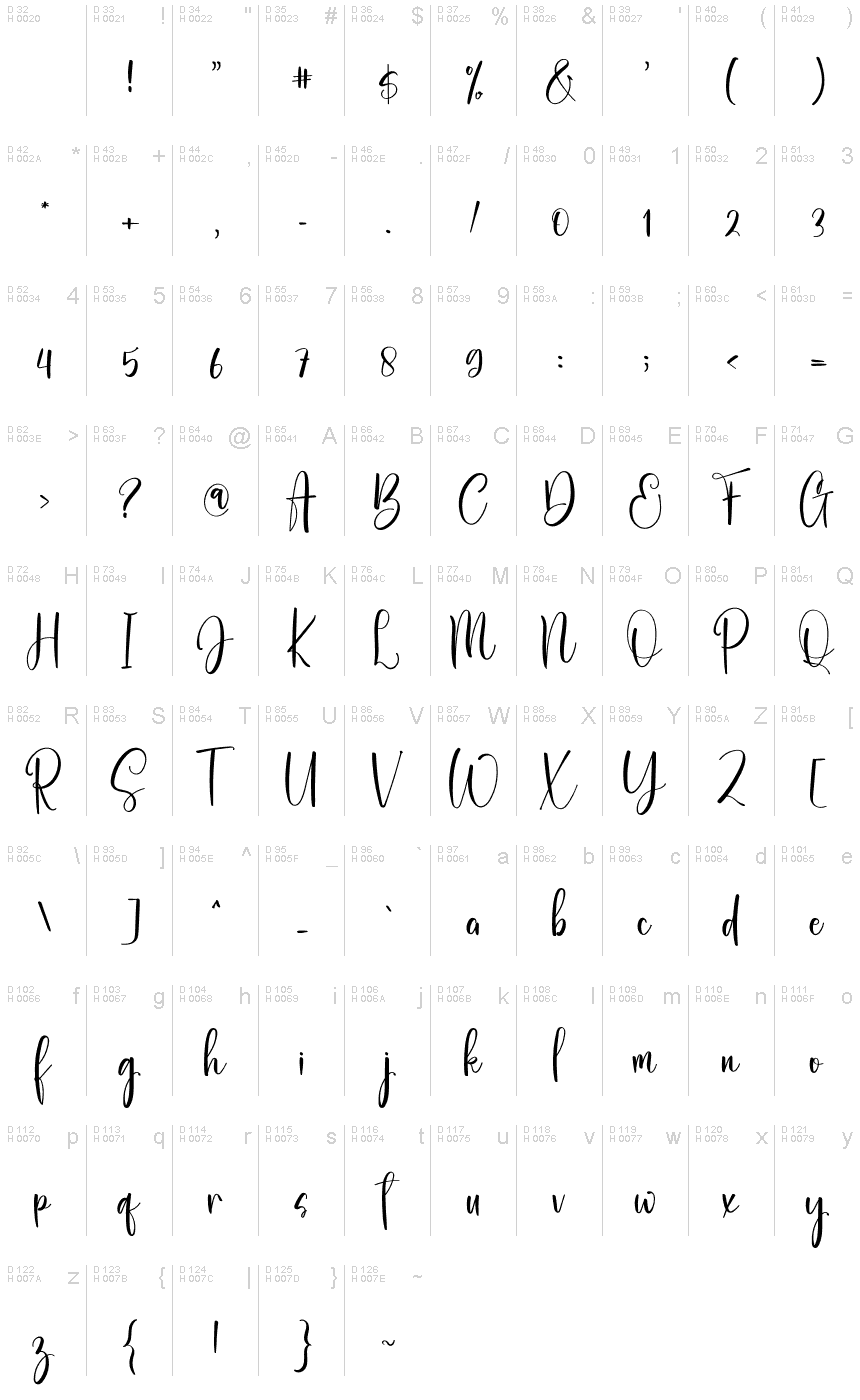
Endinglove
Endinglove, a charming semi-light handwritten font by Inermedia Studio, is the perfect choice for any project that needs a touch of whimsy and elegance. With its semi-condensed width, it is ideal for designs that require a balance between readability and compactness. Use Endinglove in your branding projects, wedding invitations, greeting cards, social media graphics, and more to add a personal touch and convey warmth and friendliness. Its graceful curves and playful strokes will make any text stand out while maintaining legibility. So why settle for boring fonts when you can have Endinglove?